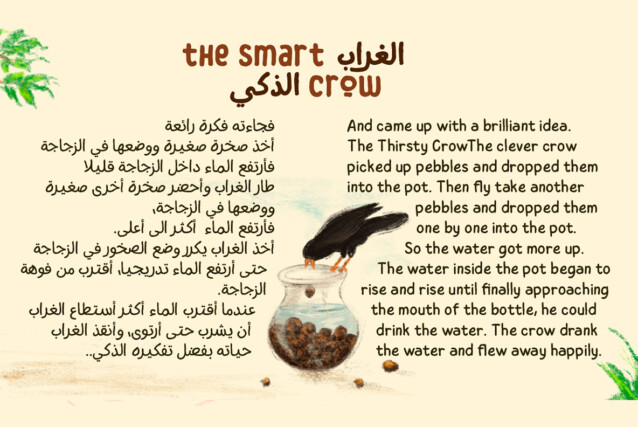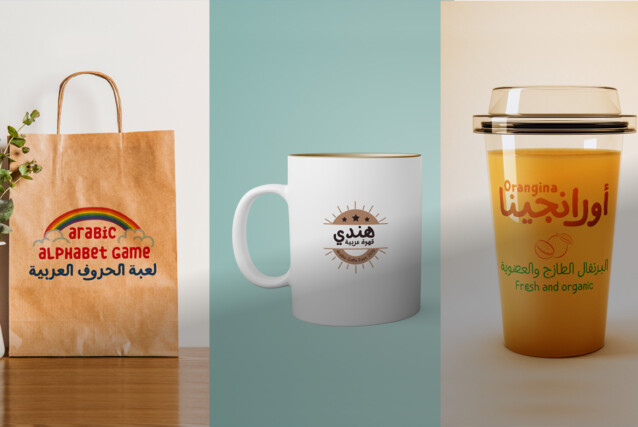
Childos Arabic Font is a charming handwritten typeface characterized by its rounded, slightly rough sans-serif style. It combines the elegance of handwriting with a playful touch, making it a versatile choice for various design projects. One of its standout features is the incorporation of free and visually appealing ligatures, which not only enhance the overall aesthetics but also effectively bridge the gaps between letters, ensuring a harmonious and engaging visual experience. Whether used in branding, posters, invitations, or digital content, Childos Font adds a delightful and distinctive element that captures attention and infuses a sense of creativity and personality into any design it graces.
Childos Arabic font offers its versatility in Arabic, Urdu, and Persian versions, allowing for wider accessibility and creative possibilities in various languages and contexts.